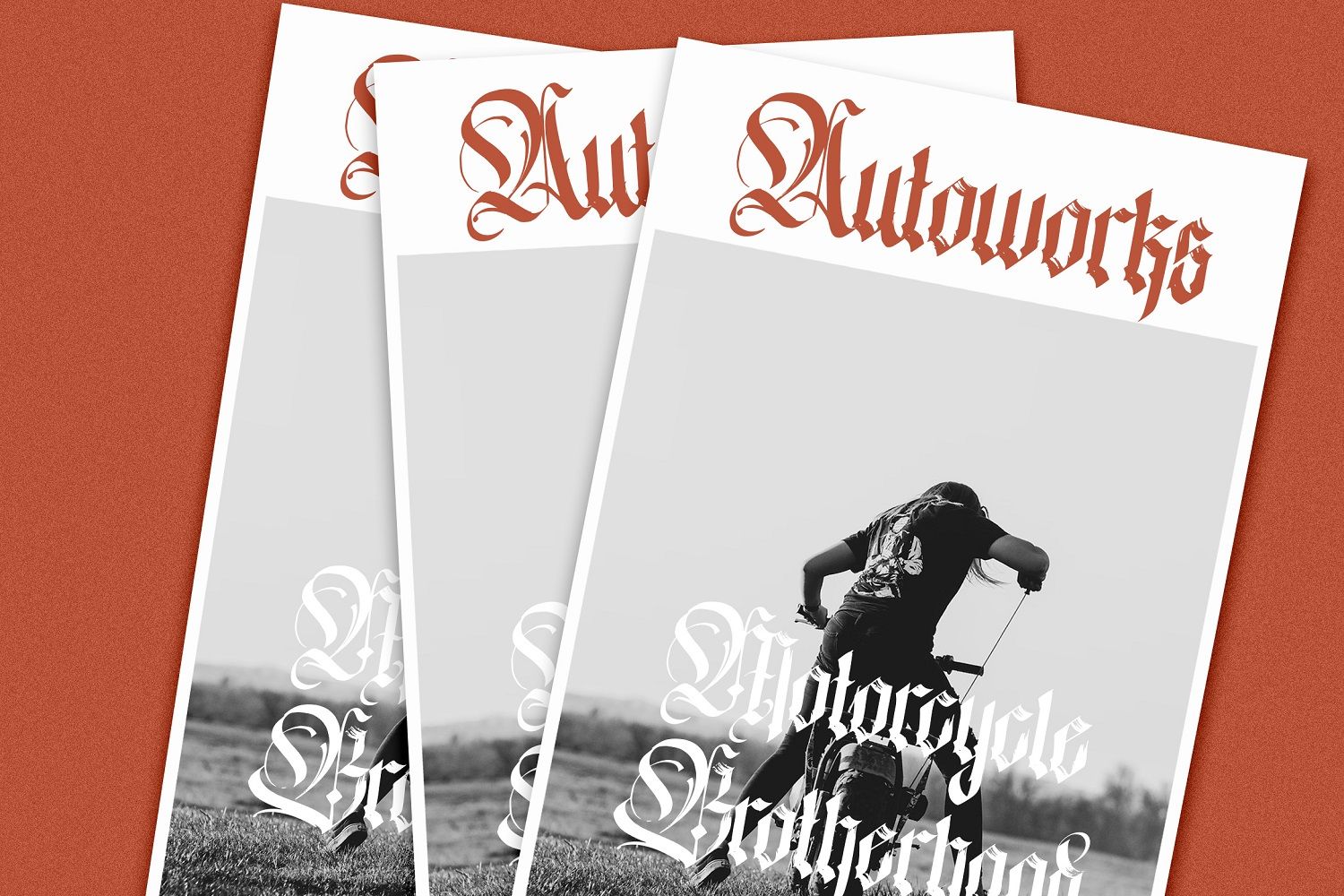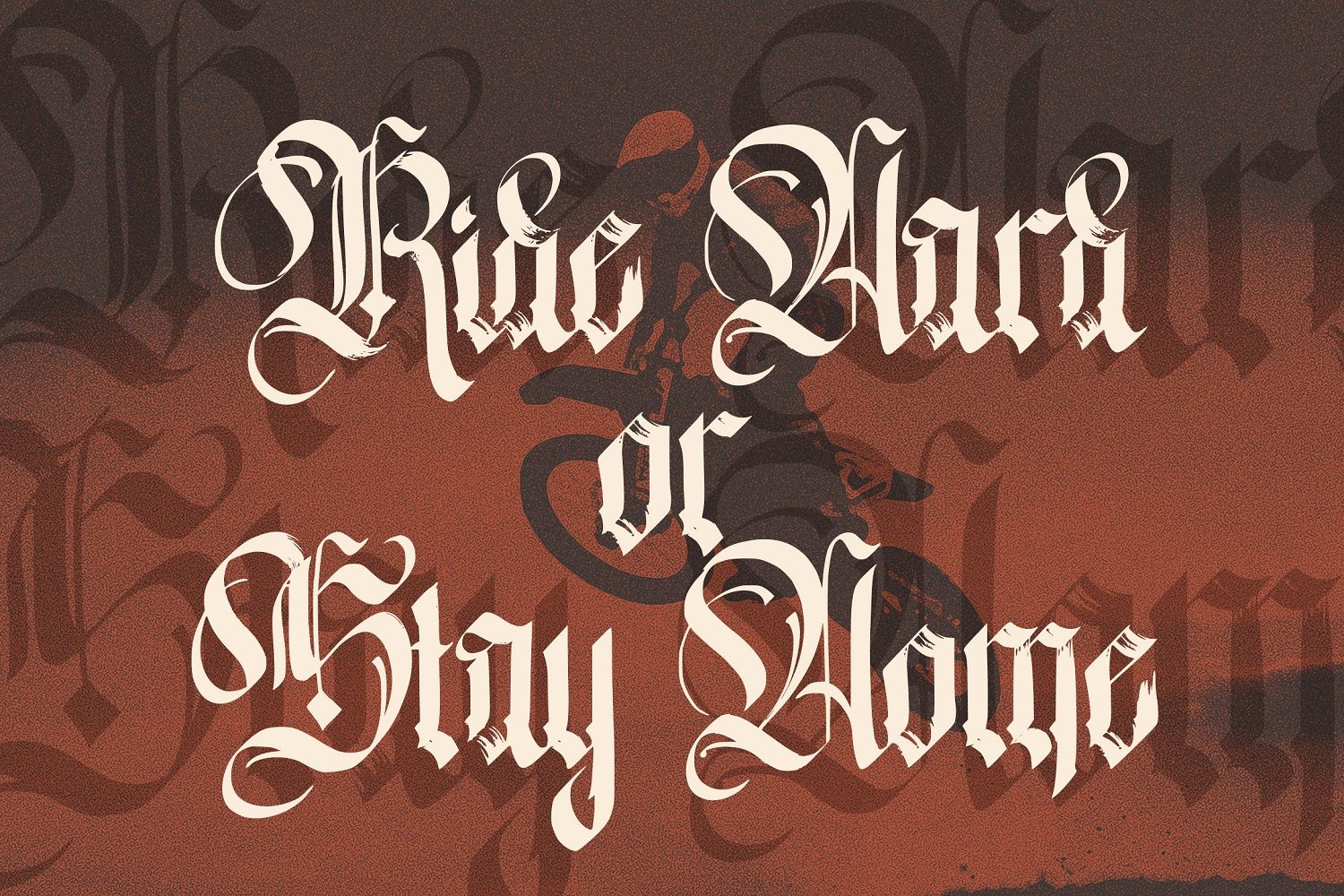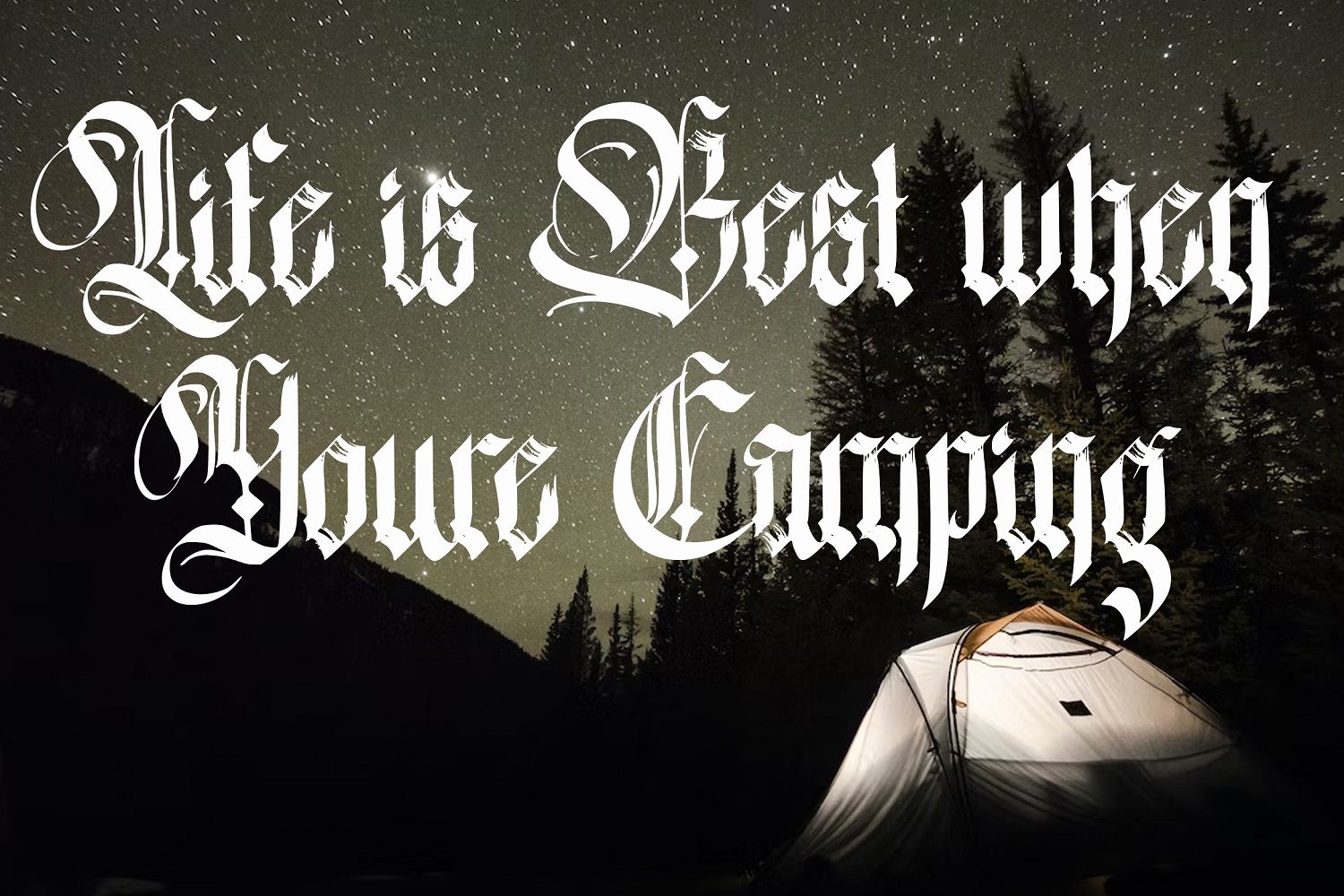
Free The White Knight Blackletter Font brings a dramatic, gothic energy to any layout. The tall, narrow letterforms, razor–sharp serifs, and ornate curves create a dark romantic mood that feels halfway between medieval manuscript and metal band poster. Used at large sizes, Free The White Knight Blackletter Font immediately grabs attention, making it a strong choice for logos, album covers, book titles, fantasy or horror movie posters, and tattoo-inspired apparel graphics.
Uppercase and lowercase sets, numerals, punctuation, and multilingual support give you enough flexibility for full headlines, taglines, and short branding phrases. It’s not designed for long paragraphs, but it shines when you want a bold focal point supported by a clean sans serif for the smaller text. Think craft beer labels, vintage bar or barbershop branding, gaming or esports identities, event titles, and packaging that needs a fearless blackletter voice—Free The White Knight Blackletter Font delivers that unmistakable character.